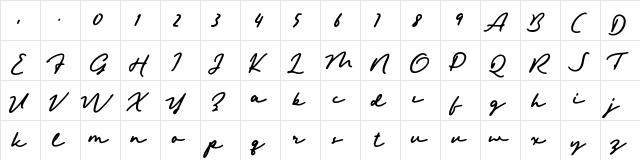
Hemisphers Script Regular
| Foundry | Runsell Studio |
| Designer | Satia Hayu P |
Design Context for Hemisphers Script Typeface
Hemisphers Script brings a calligraphic fluidity to the page — its connecting strokes and expressive curves give it an unmistakably human quality.
Font Pairing: Combine Hemisphers Script with a simple geometric sans for maximum contrast — the tension between flowing curves and clean structure is a classic typographic pairing.
Pro Tip: Use Hemisphers Script for short runs of text — names, titles, or taglines. Extended body copy in script faces tires the eye quickly.